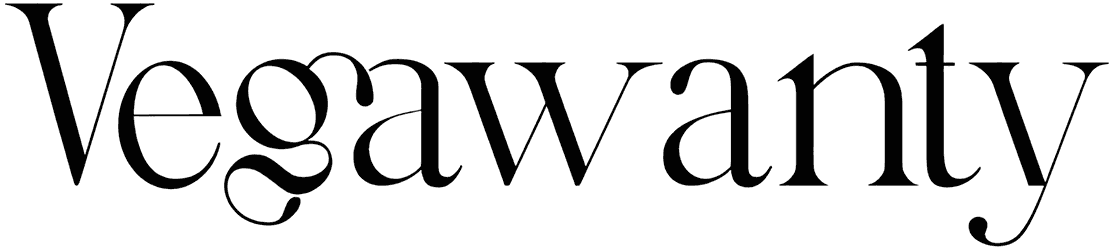
Vegawanty Font
If you want to design something to look more luxurious and attractive with a lasting impact, then Vegawanty font might be able to meet your needs. This neat, well-balanced serif font provides good versatility but doesn’t support all the punctuation. It will be perfectly qualified for branding, wedding invitations, labels, magazine covers, and movie posters.